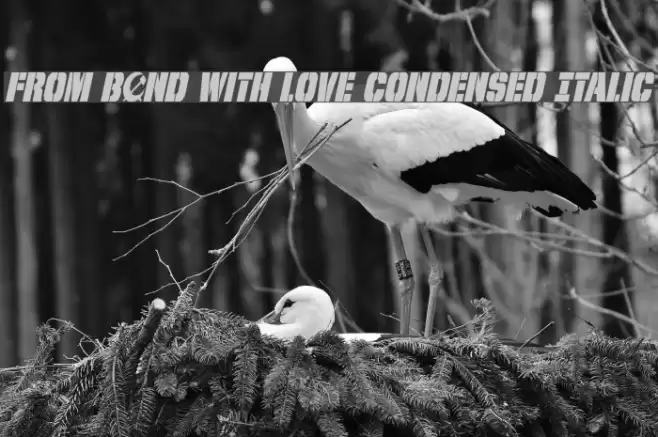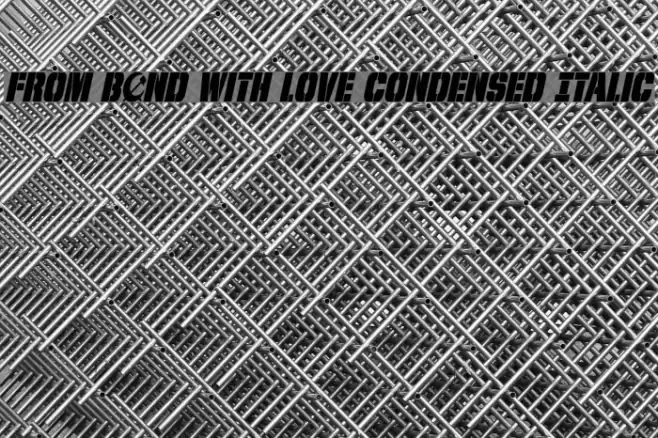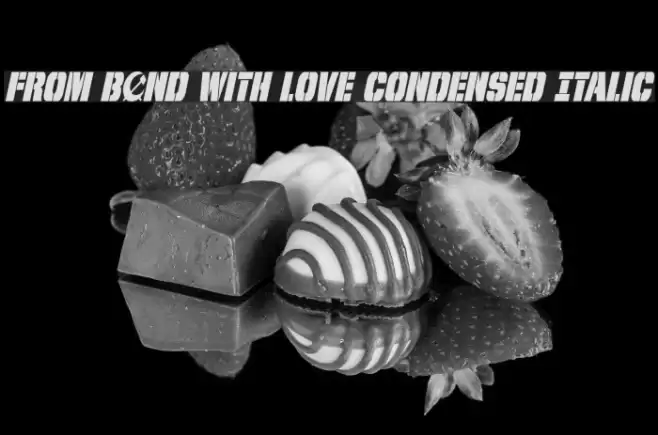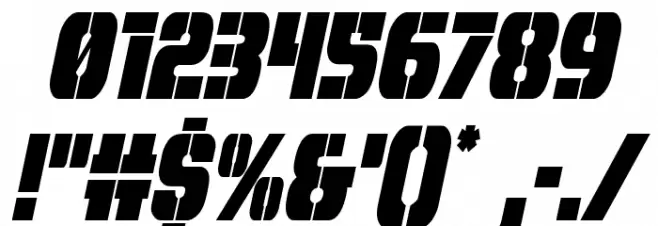
From BOND With Love Condensed Italic Font
From BOND With Love Condensed Italic Description
This font features a bold, condensed style with a distinct italic slant, giving it a dynamic and energetic appearance. The characters are tightly spaced, enhancing the compact look. The uppercase letters are particularly striking, with sharp angles and a modern flair. The numbers and special characters maintain the same boldness and slant, ensuring consistency across all glyphs. This font's high contrast in stroke thickness adds to its impactful and eye-catching design, making it suitable for attention-grabbing headlines or branding materials.
A bold, condensed italic font with high contrast and dynamic style from Valentine's Day fonts.
- Proposed Projects: Ideal for movie posters, action-themed branding, sports team logos, and dynamic advertising campaigns.